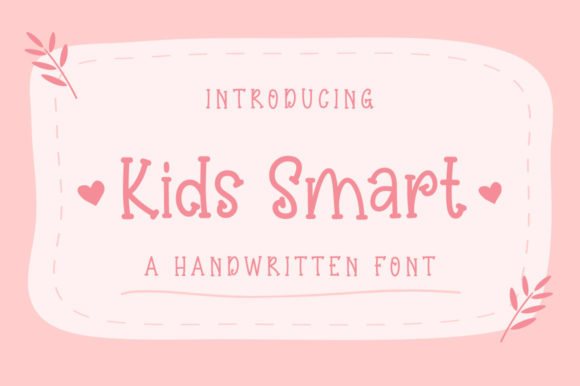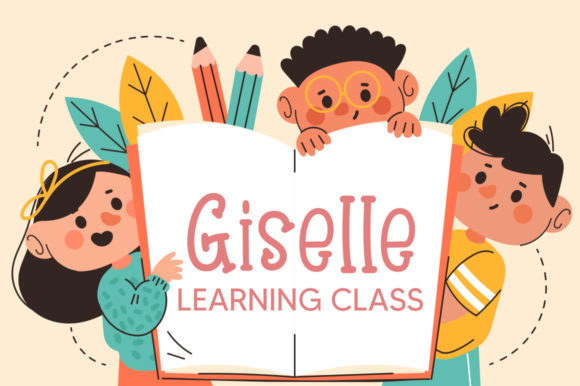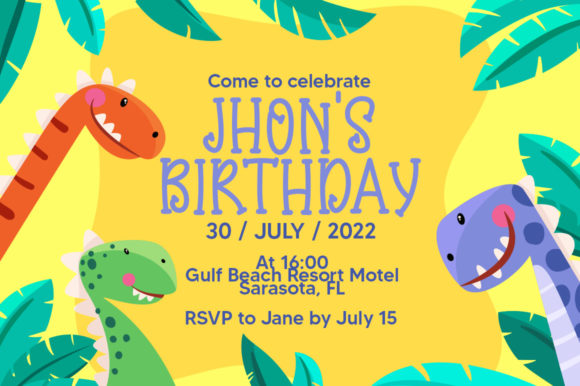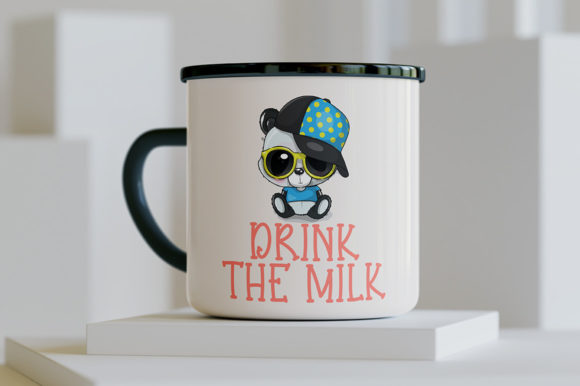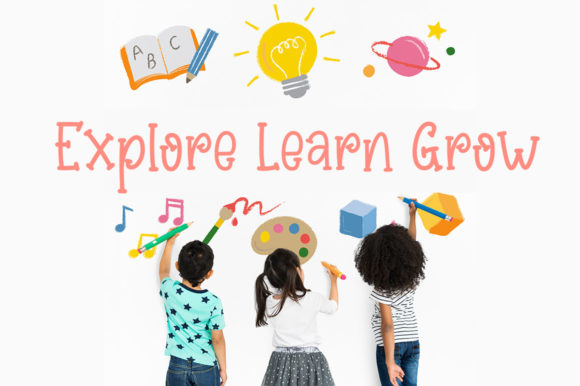
Kids Smart Font
About Kids Smart Font
Introducing Kids Smart, a playful and smart-looking display font designed to infuse a touch of joy and creativity into your designs. Whether you’re working on invitations, thank-you cards, quotes, greeting cards, logos, business cards, or any project that requires a personalized touch, Kids Smart is the ideal choice.
The charm of Kids Smart lies in its lively and whimsical design. Each letter exudes a sense of fun and intelligence, making it a perfect fit for projects that demand a creative and customized appearance. The font’s versatility ensures that it brings a ravishing appeal to a variety of design applications.
From invitations to thank-you cards, Kids Smart adds a delightful and smart-looking touch to your messages. Its playful style creates a vibrant and engaging atmosphere, perfect for conveying warmth and joy. Whether you’re organizing a kids’ event or adding a touch of whimsy to your designs, Kids Smart ensures your message stands out with creativity.
Quotes become even more impactful when paired with Kids Smart. The font’s smart-looking display adds an extra layer of personality to your words, turning your quotes into visually appealing statements. Whether it’s logos or business cards, Kids Smart brings a customized touch to your brand identity, making it memorable and fun.
In the vast landscape of design possibilities, Kids Smart emerges as a font that effortlessly combines playfulness and intelligence. It’s not just a typeface; it’s a design companion that injects a sense of joy into every project. So, if you’re seeking a fun and smart-looking display font to elevate your designs, let Kids Smart be the creative spark that transforms your vision into a captivating and memorable reality.